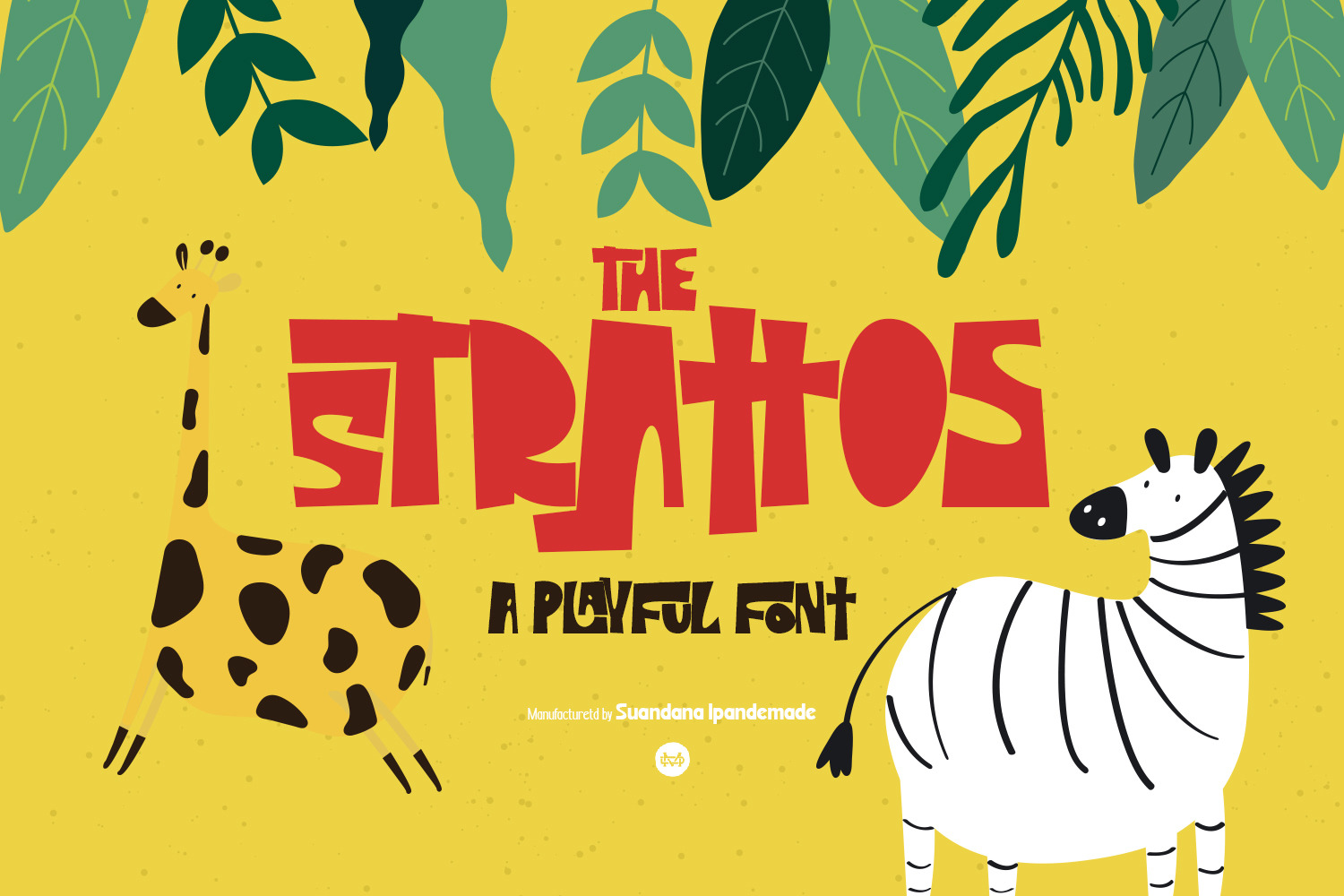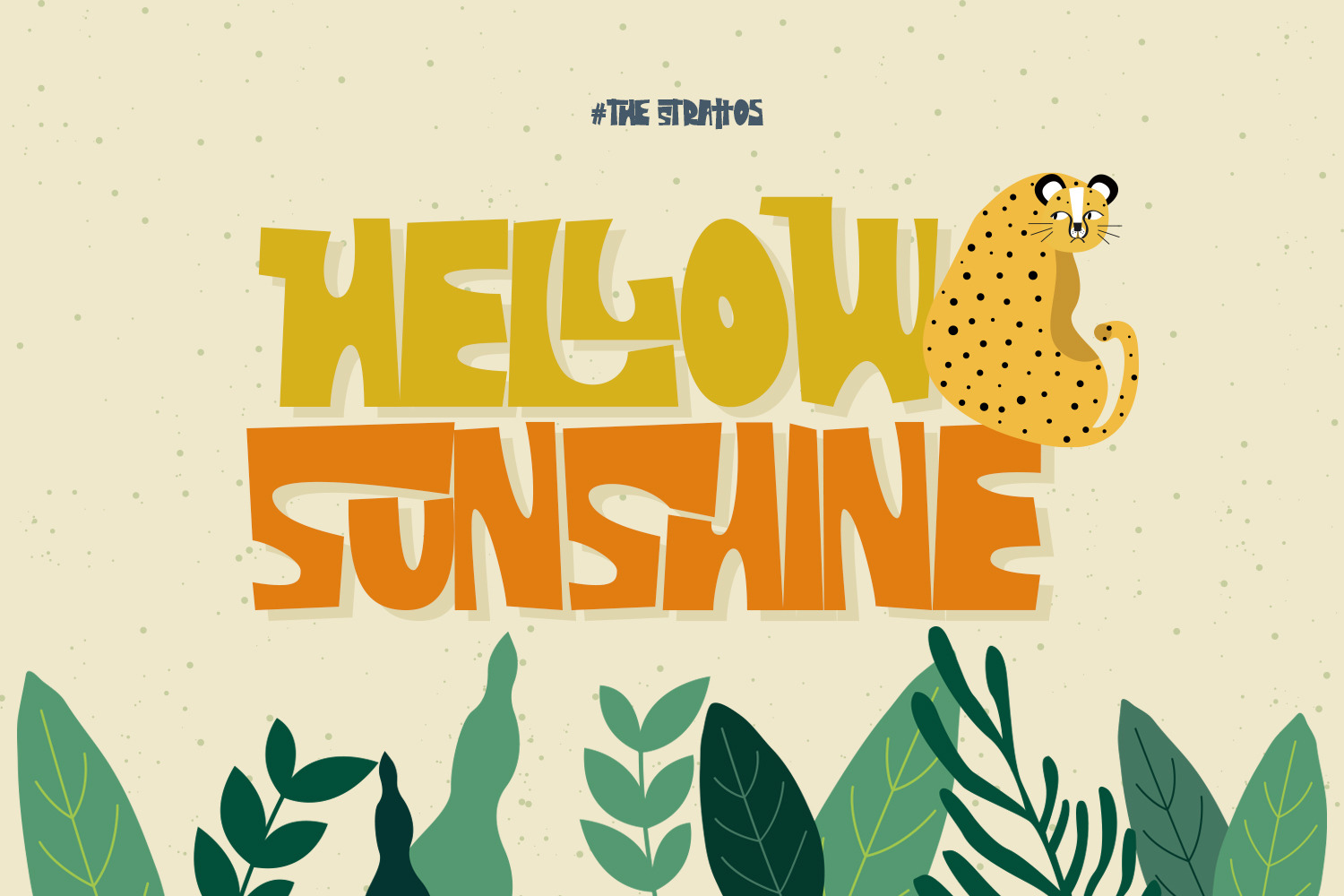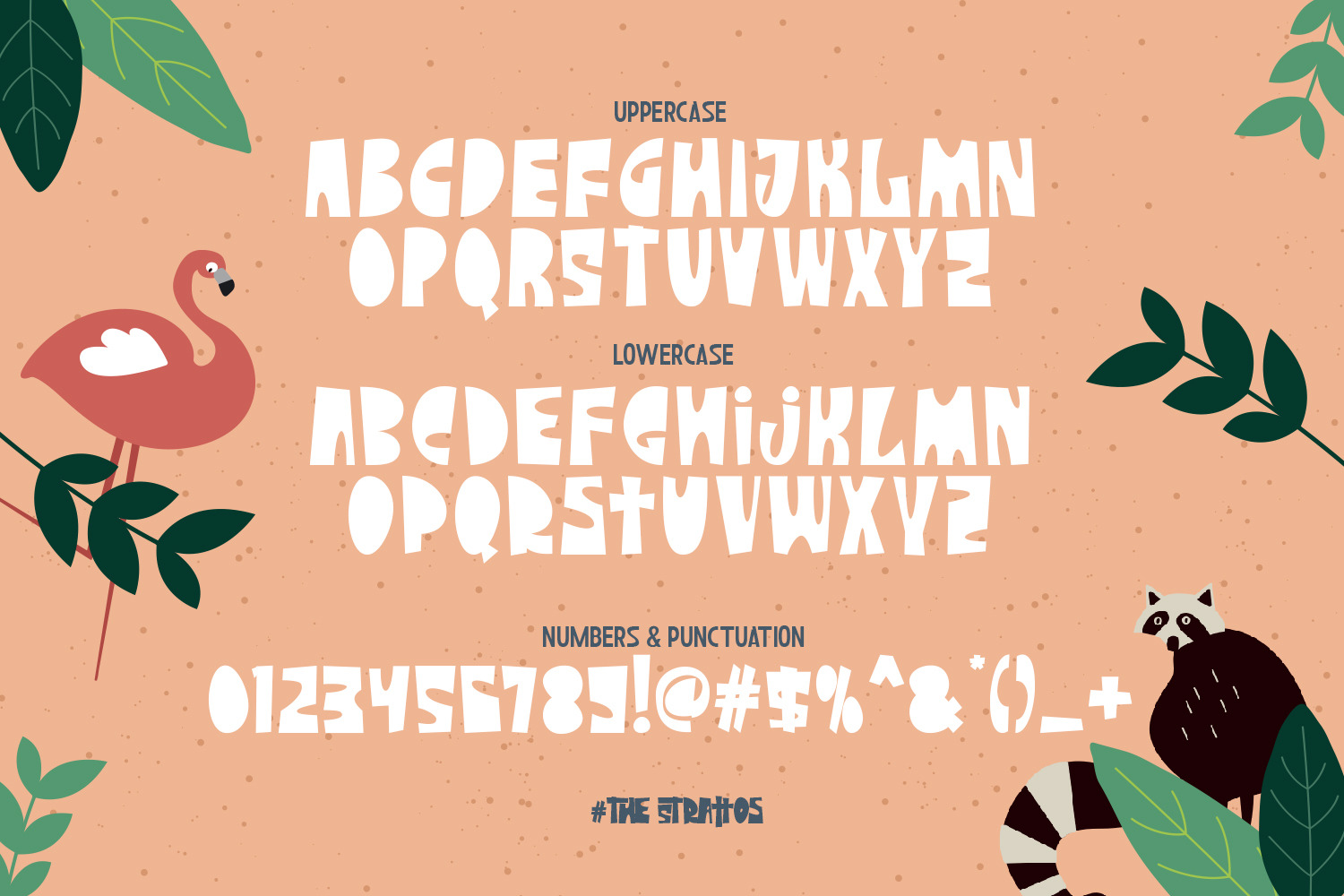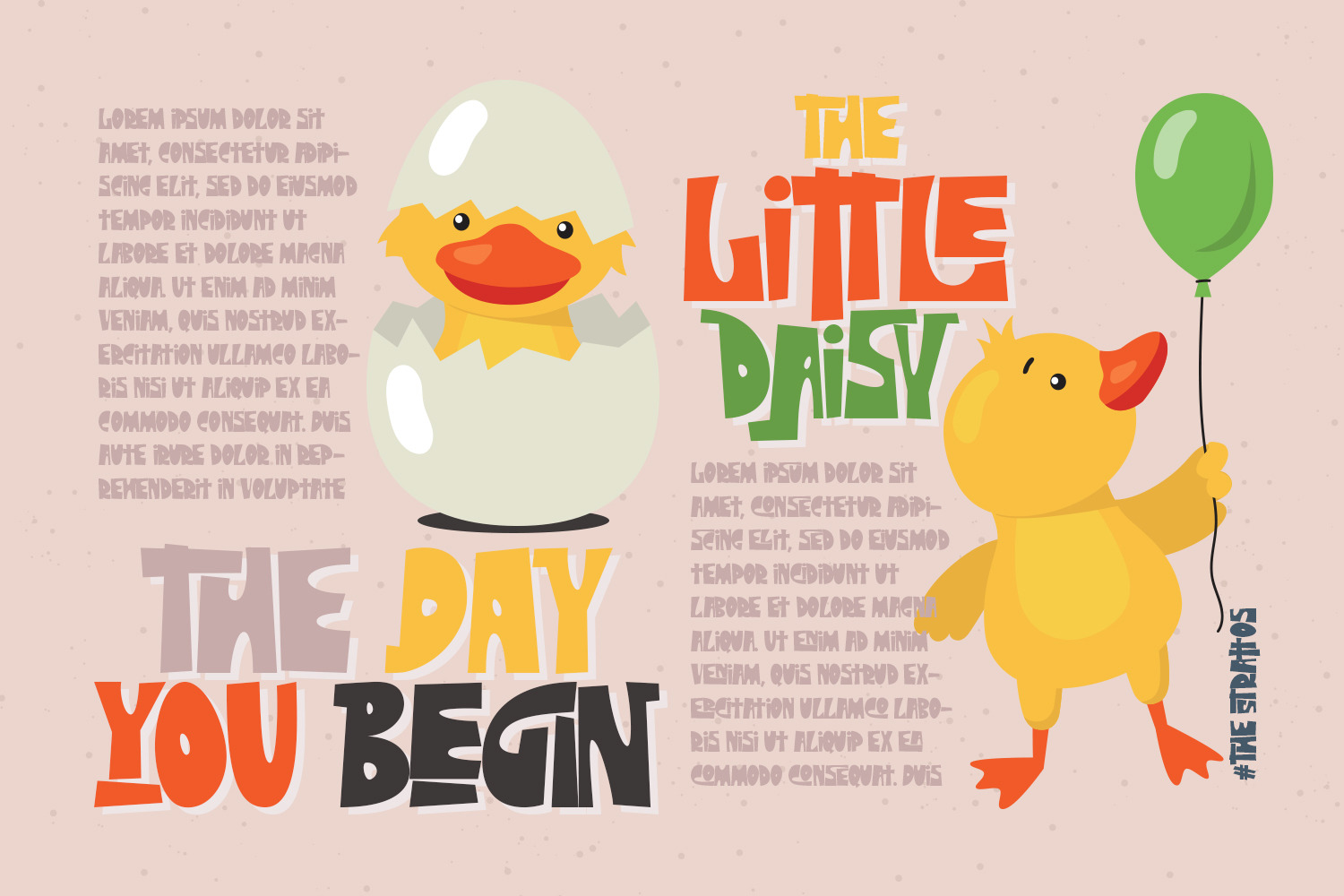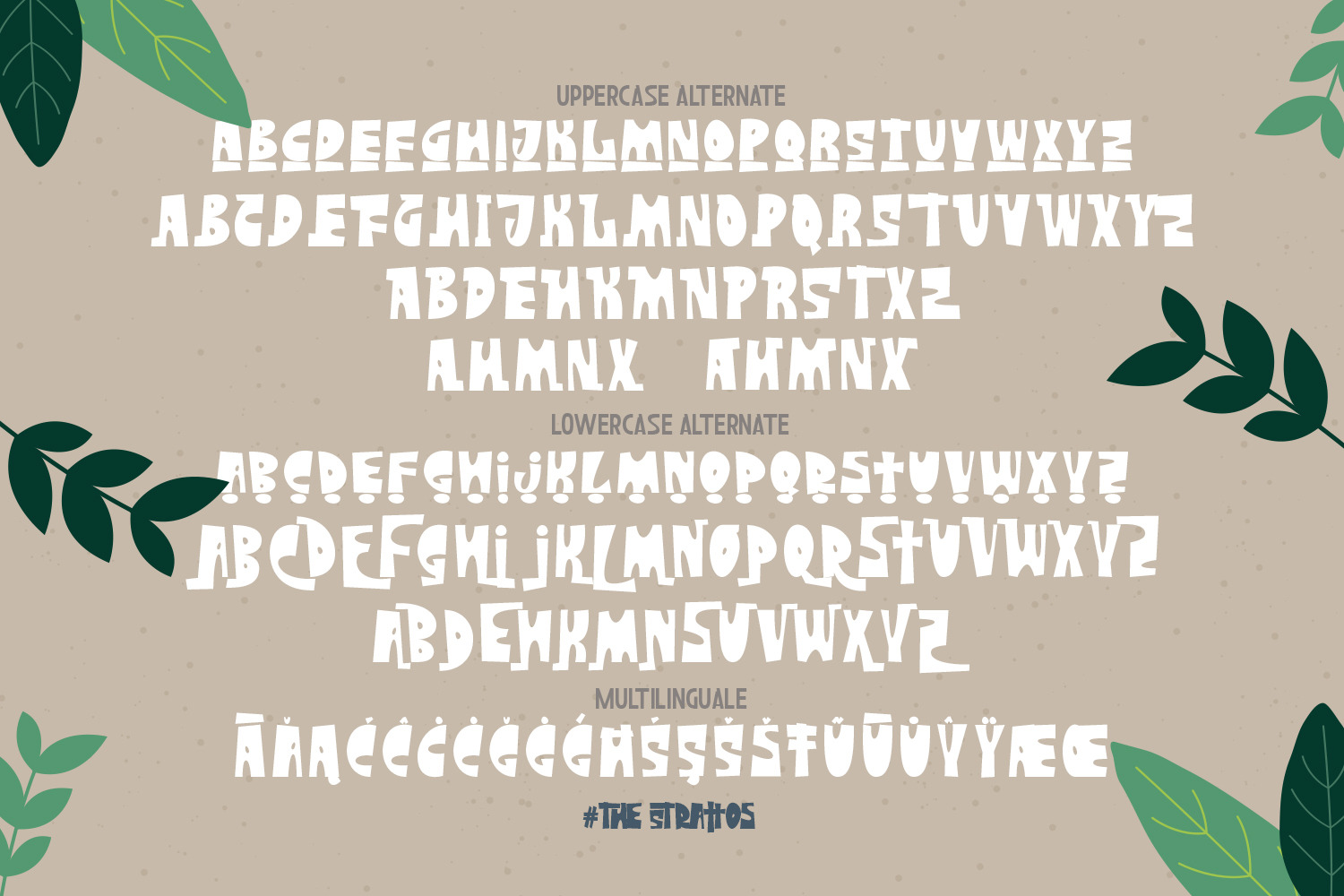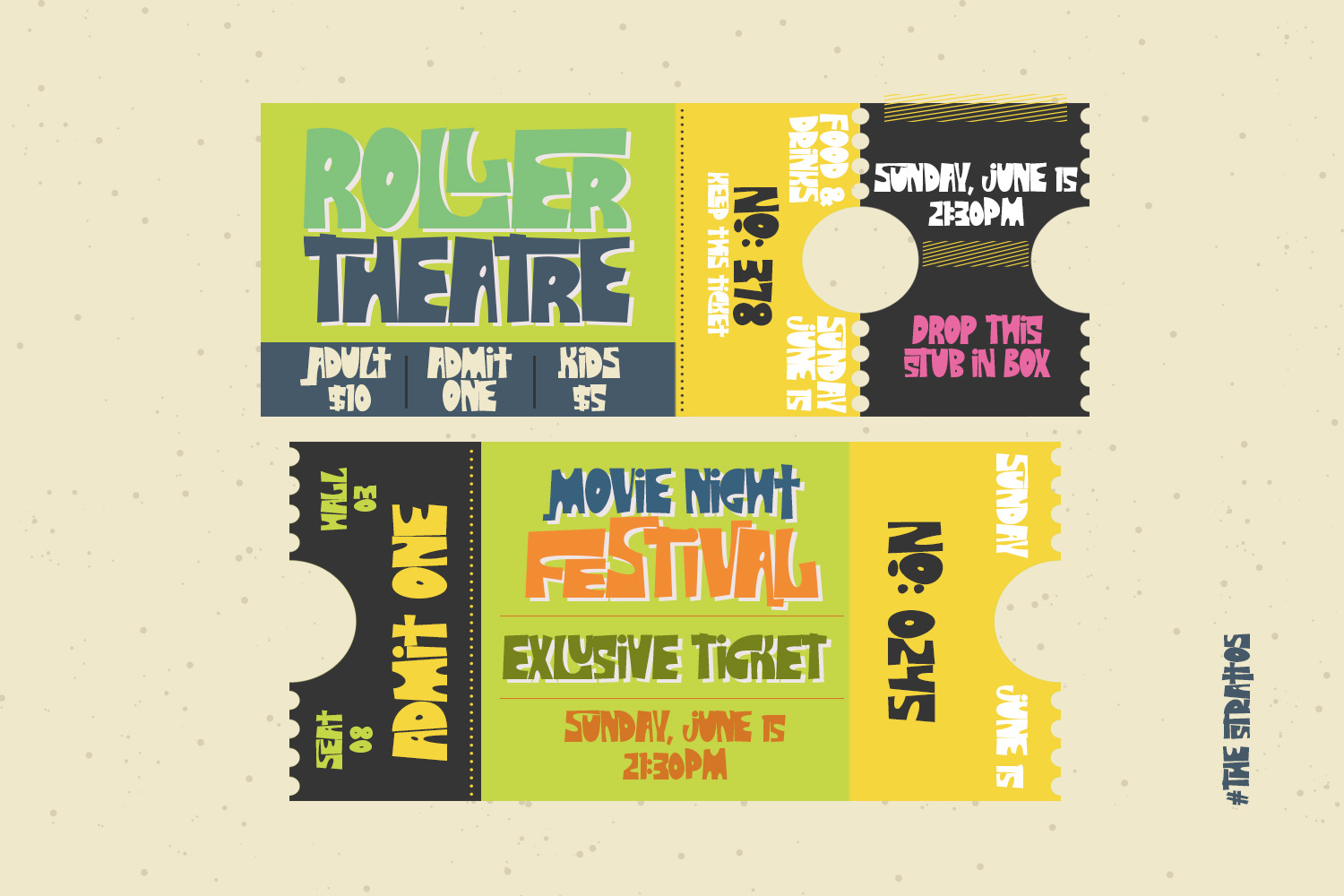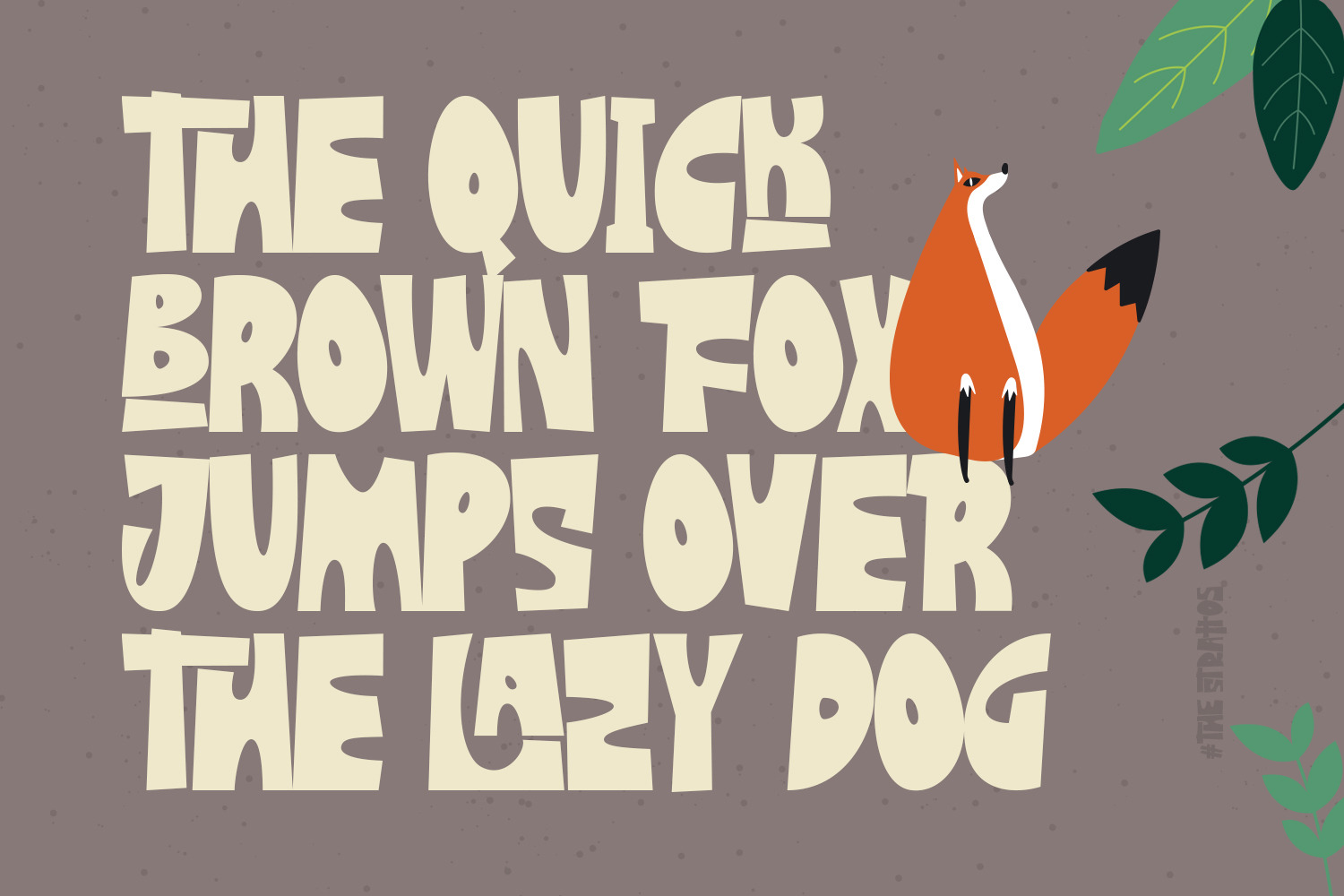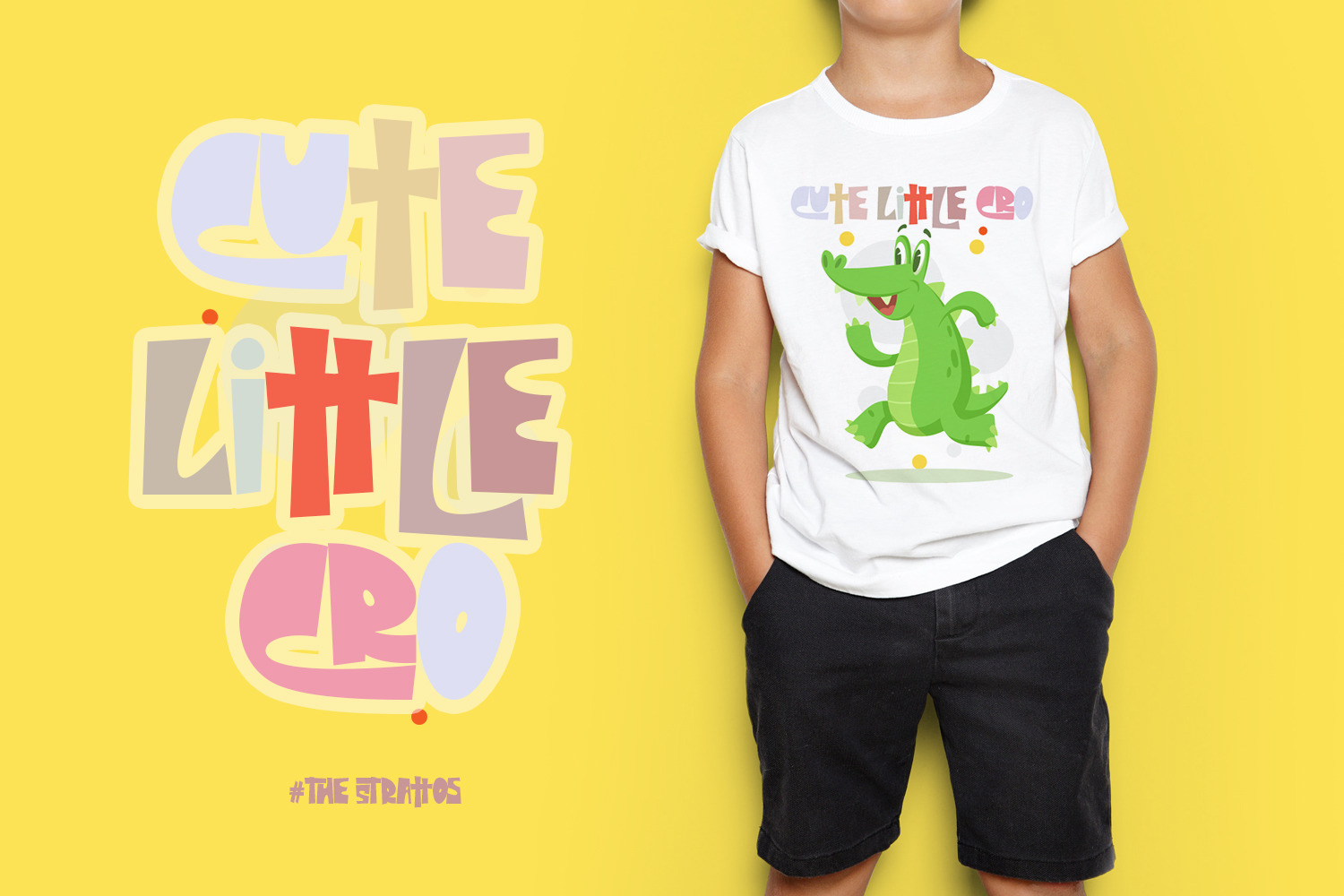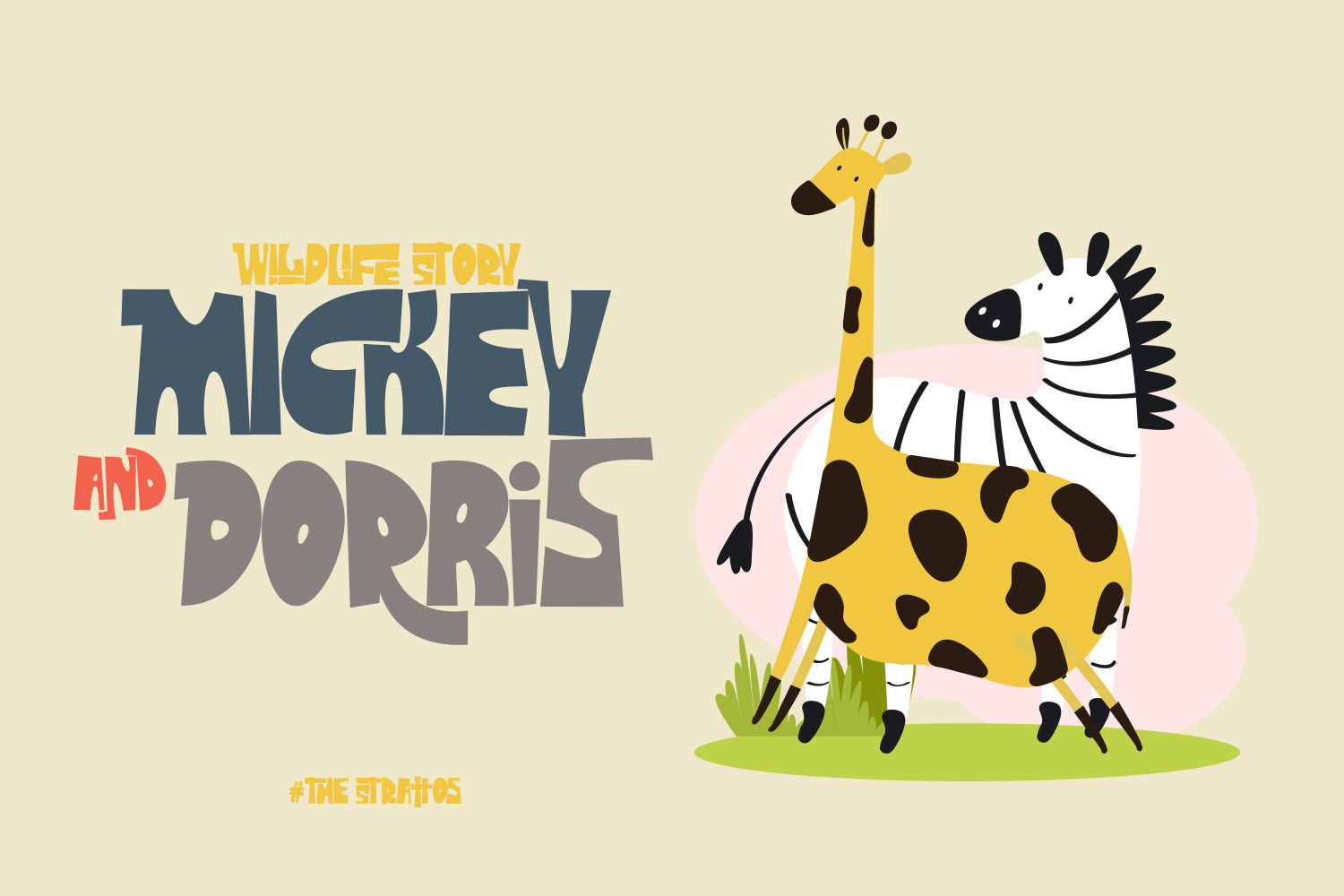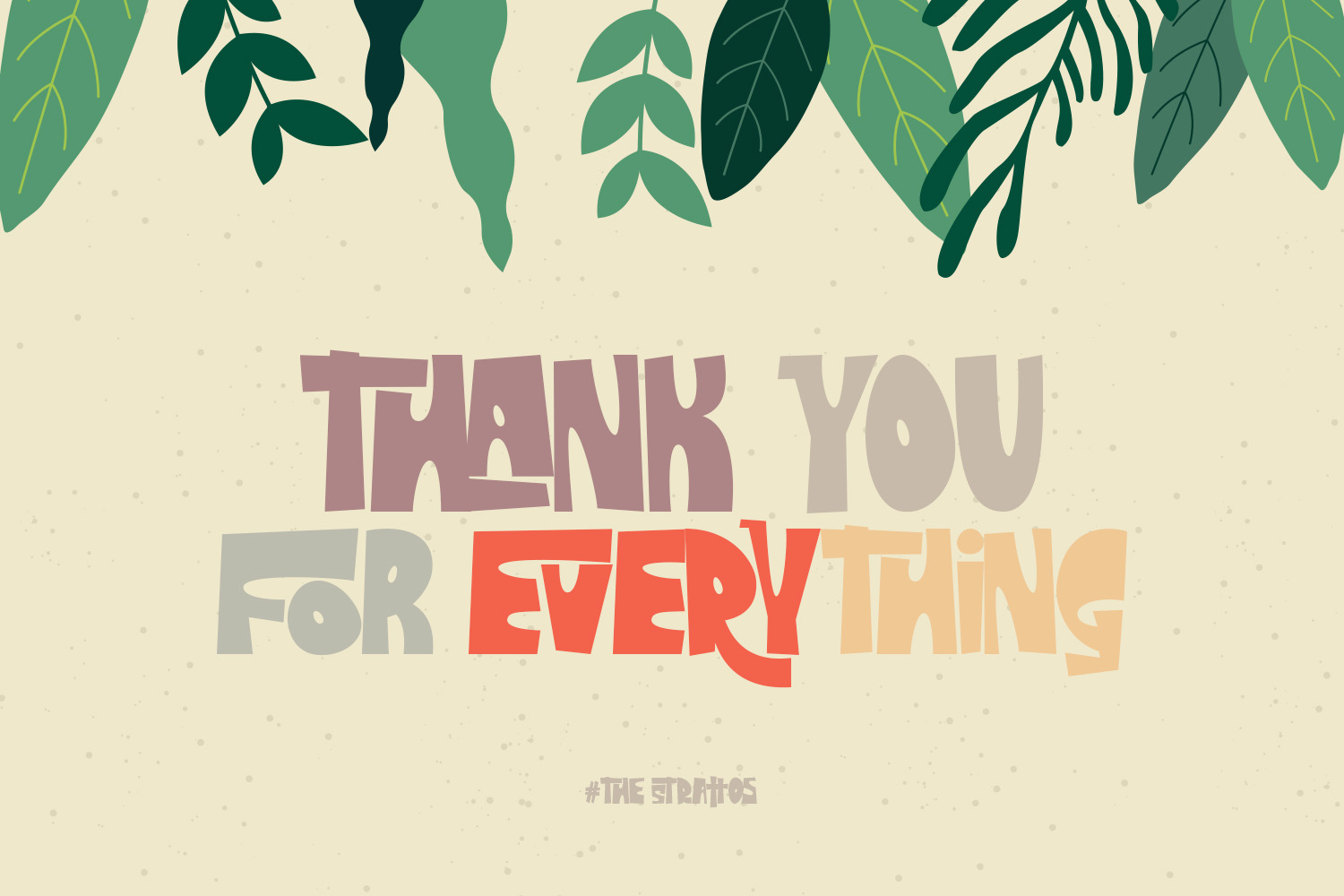
The Strattos - A Playful Font
Introducing The Strattos is a powerful playful font and will be perfect for book, title branding, product packaging, invitation, quotes, t-shirt, label, poster, logo etc.
- 2 style font
- Number & Symbol
- International Glyphs